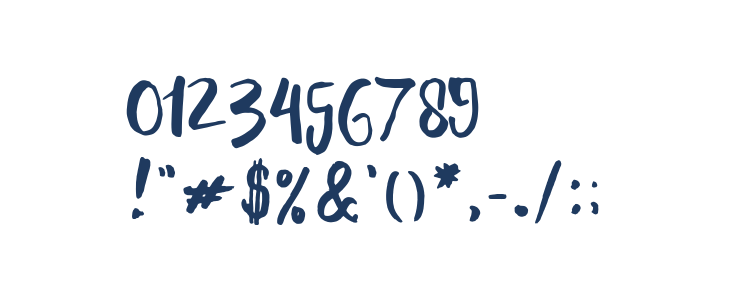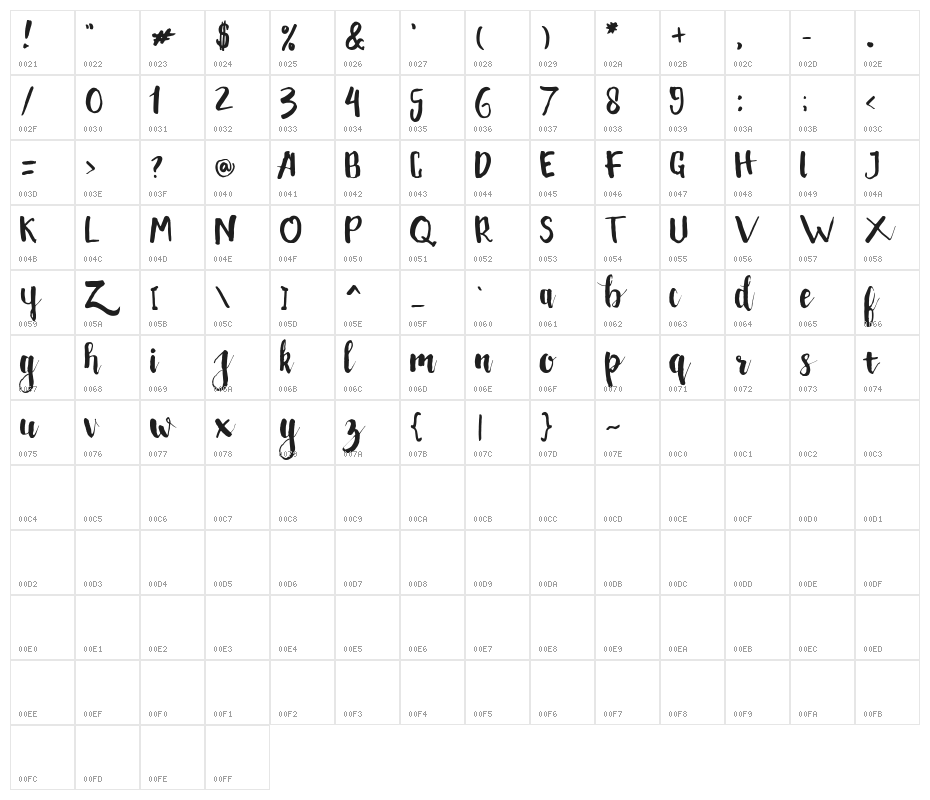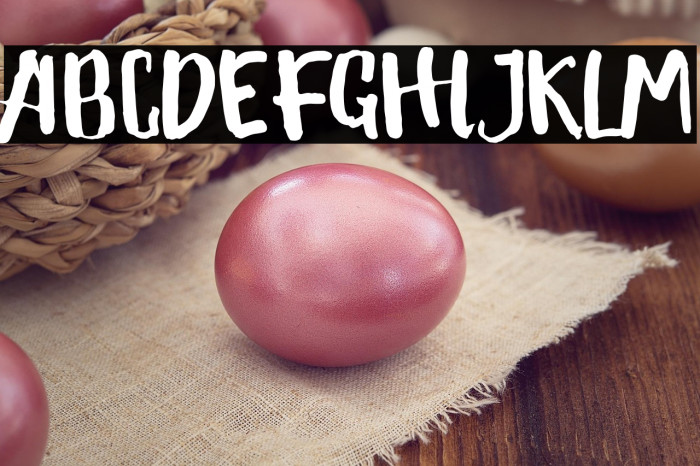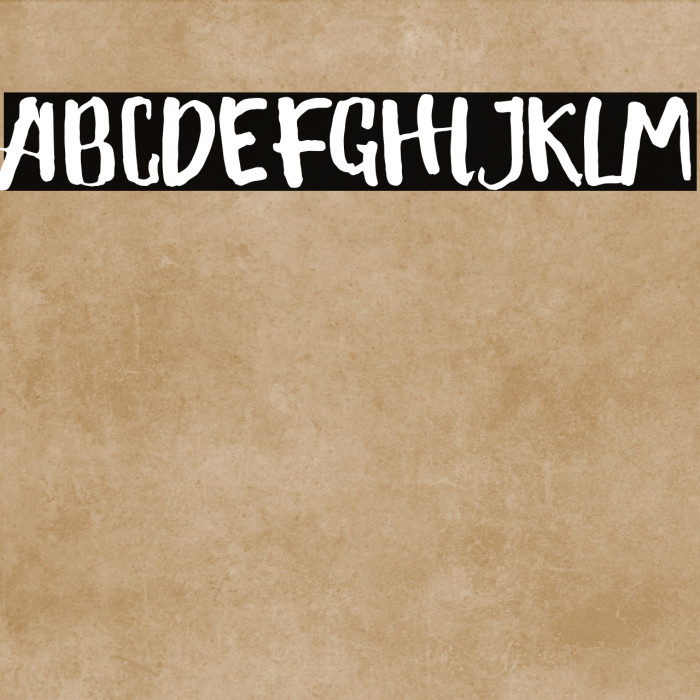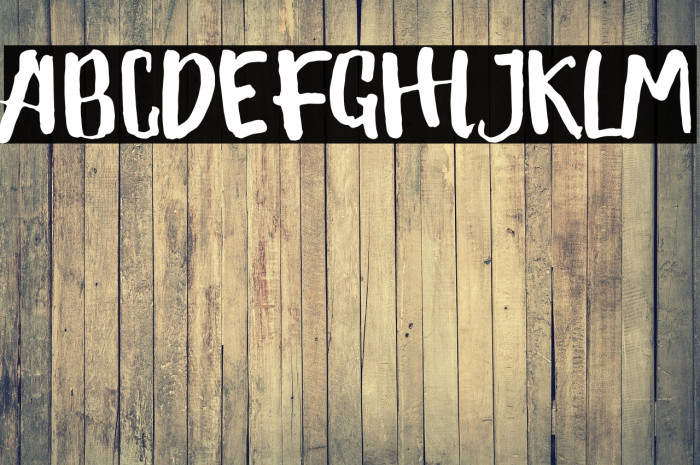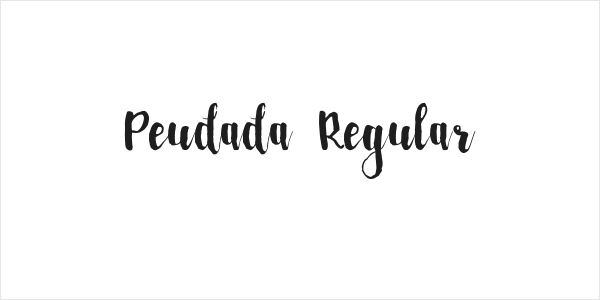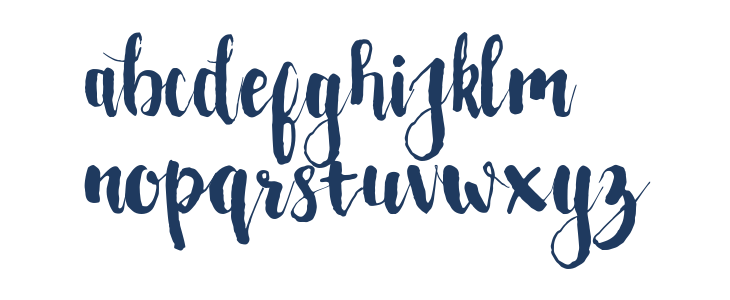
Peudada Regular Font
Peudada Regular Description
This font exhibits a bold and expressive handwritten style, characterized by its fluid and dynamic strokes. The uppercase letters are robust and slightly irregular, giving a sense of movement and energy. The lowercase letters maintain a consistent flow, with some characters featuring unique loops and curves that add to the font's artistic flair. Numbers are bold and clear, matching the overall style of the alphabet. Special characters are creatively designed, maintaining the font's playful and artistic nature. The font's overall appearance is both modern and artistic, making it suitable for creative projects.
| Overall Style | Modern, Artistic |
| Use Case | Headlines, Logos, Posters, Invitations |
| Proposed Projects | Ideal for creative projects such as posters, invitations, branding, and artistic designs where a personal touch is desired. |